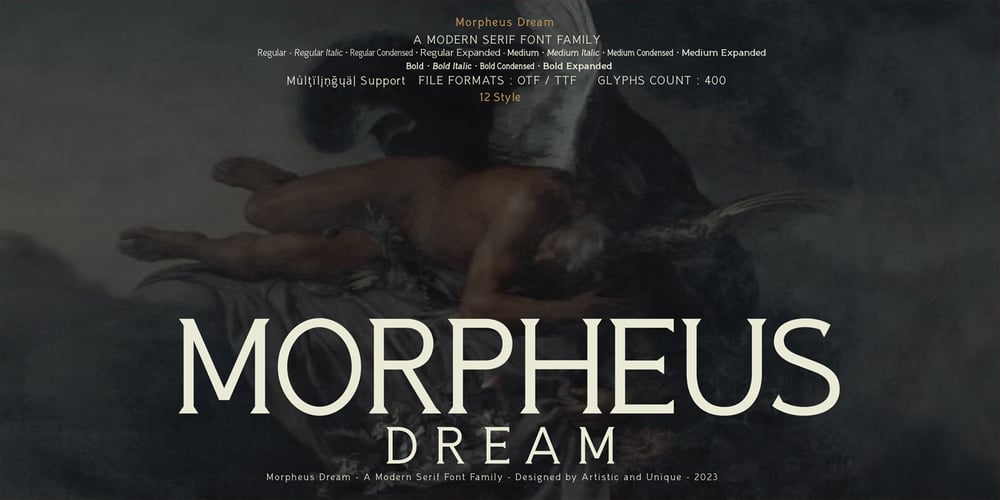
Morpheus Dream Font Family was designed by Osman Taner Kucukgenc and published by Artisticandunique. Morpheus Dream contains 12 styles and family package options. Morpheus Dream – Serif font family – Multilingual – 12 StylesThis font family help you develop your creative projects with its 12 styles and multilingual supports. It was inspiration from Greek mythology. The characters that make up its structure were influenced by the carved letters in the old stone inscriptions.Ideal for books and magazines, editorials, headlines, websites, logos, branding, advertising and more. This font family can meet your needs in all creative projects, modern and classic.